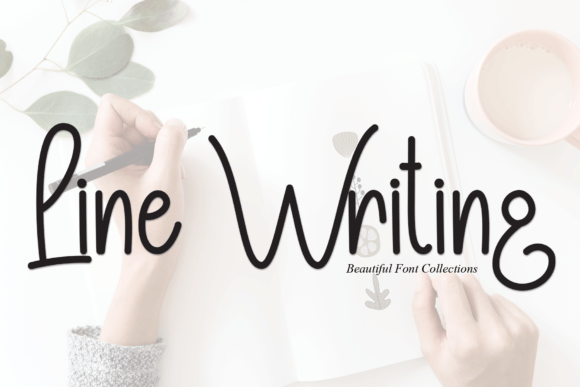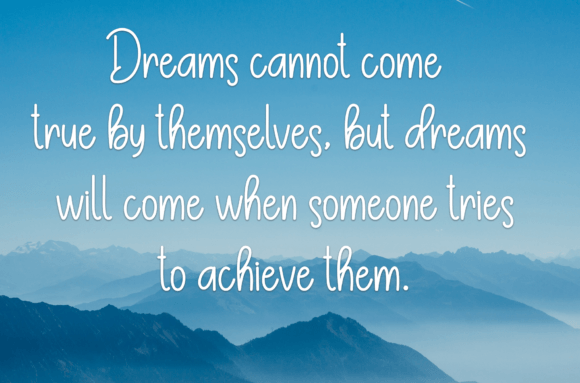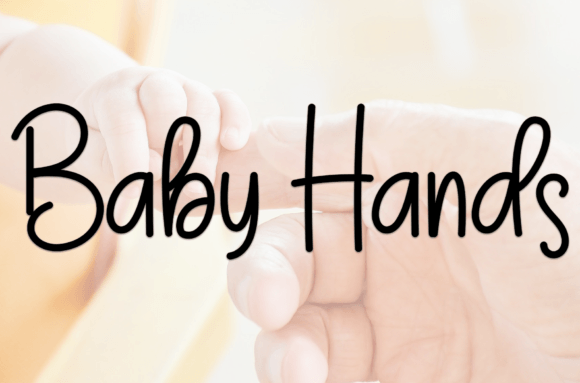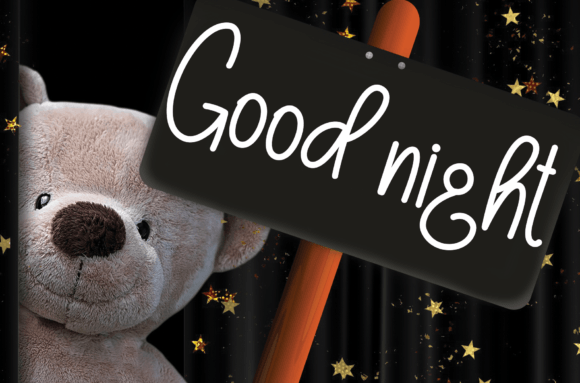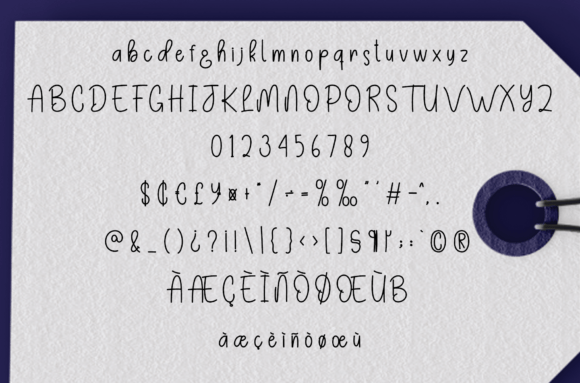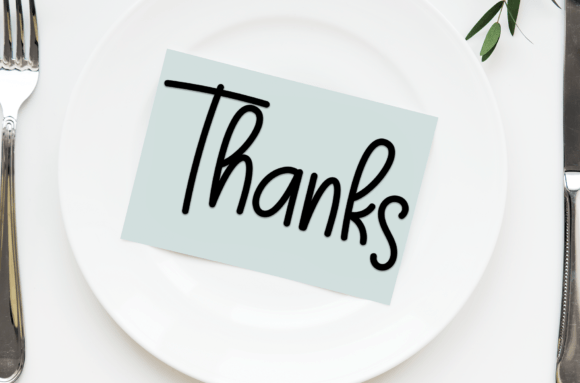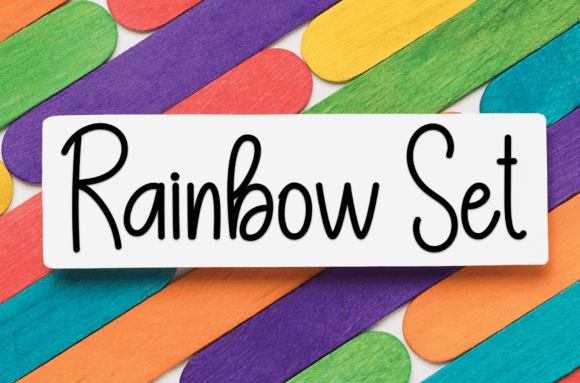
Line Writing Font
What Is Line Writing Font?
Line Writing Font is a delightful and approachable handwritten script designed to bring a touch of whimsy to your projects. Each letter flows with smooth, playful lines that feel both creative and friendly. This balance makes Line Writing Font a wonderful choice for designs that need personality without losing clarity.
The font combines modern charm with a handcrafted feel, giving you the flexibility to use it across a variety of styles and applications.
Line Writing Font is versatile and perfect for many creative uses. For example, it looks beautiful on wedding invitations, save-the-date cards, and thank-you notes. Its sweet, flowing style adds romance and playfulness that your guests will remember.
Greeting cards for birthdays, holidays, or milestones also shine with this font. The cheerful strokes make your messages feel more sincere and heartfelt.
If you design logos, Line Writing Font can help your brand look approachable and memorable. Boutiques, artisan shops, and creative businesses often use handwritten fonts to express authenticity and warmth.
This font is also ideal for social media graphics. Quotes, announcements, and promotions become more eye-catching when you use Line Writing’s charming script. Your posts will look consistent and polished while staying fun and engaging.
Additionally, Line Writing Font is a great option for product packaging and labels. From handmade candles to gourmet treats, the font adds a personal, joyful touch that customers appreciate.
Why Should You Choose Line Writing Font?
One of the best reasons to use Line Writing Font is its readability. Even with its playful design, each letter stays clear and easy to read in both small and large sizes. This makes it perfect for a wide range of projects, from tiny labels to big banners.
Another advantage is how easily it pairs with other fonts. You can combine Line Writing Font with clean serif or sans-serif typefaces to balance its decorative script. This pairing keeps your layouts professional while adding personality.
Designers love that Line Writing Font saves time. Every character is crafted to look polished right out of the box, helping you deliver beautiful results faster.
Line Writing Font brings warmth and creativity to your work. Its smooth, handwritten look creates an authentic feel that connects with your audience. This connection is especially important when designing pieces meant to celebrate or inspire.
Its playful curves add energy and life to your layouts. Even minimalist designs feel more dynamic and inviting with a handwritten script.
Line Writing Font is more than a cute handwritten script—it’s a creative companion for any project that needs joy and character. From wedding invitations to logos and social media graphics, this font adapts to many uses and always makes a positive impression.